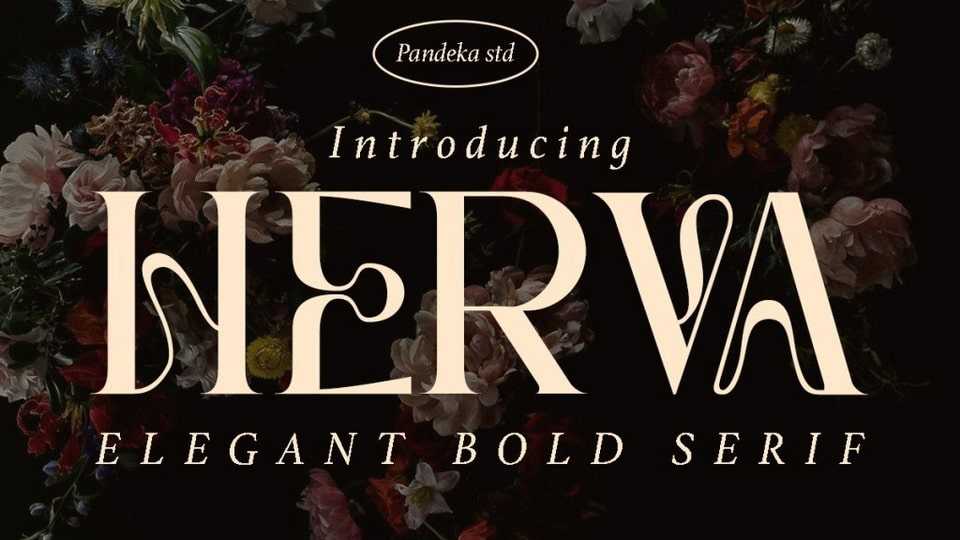
Download Herva font, a modern, elegant, and classy serif typeface, best used as a display for headings, logos, branding, magazines, product packaging, and invitations